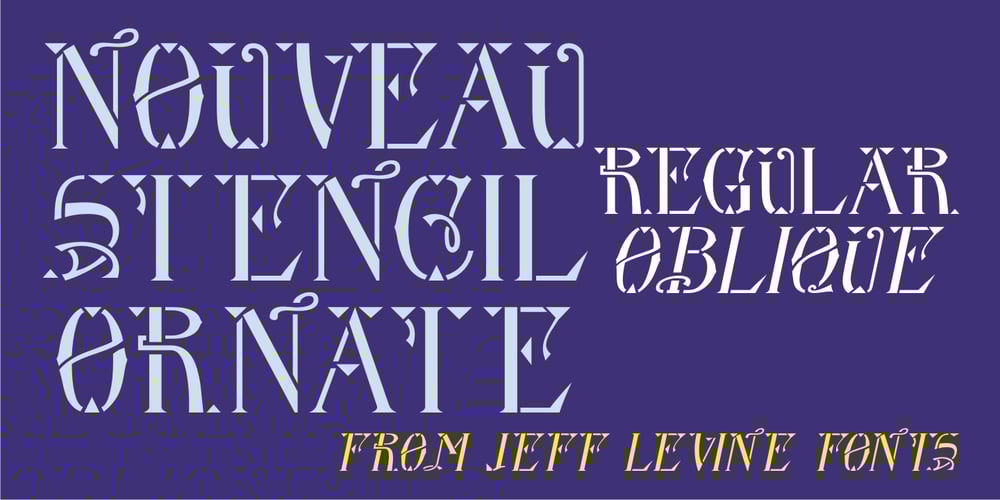
Nouveau Stencil Ornate JNL Font Family was designed by Jeff Levine and published by Jeff Levine. Nouveau Stencil Ornate JNL contains 2 styles and family package options. A 1902 publication entitled “Lettering for Schools & Colleges” had an example of an ornate, hand drawn stencil alphabet in the Art Nouveau style. This is now available digitally as Nouveau Stencil Ornate JNL, in both regular and oblique versions.